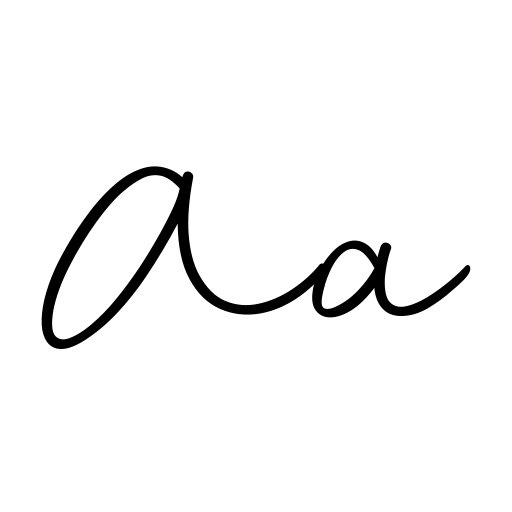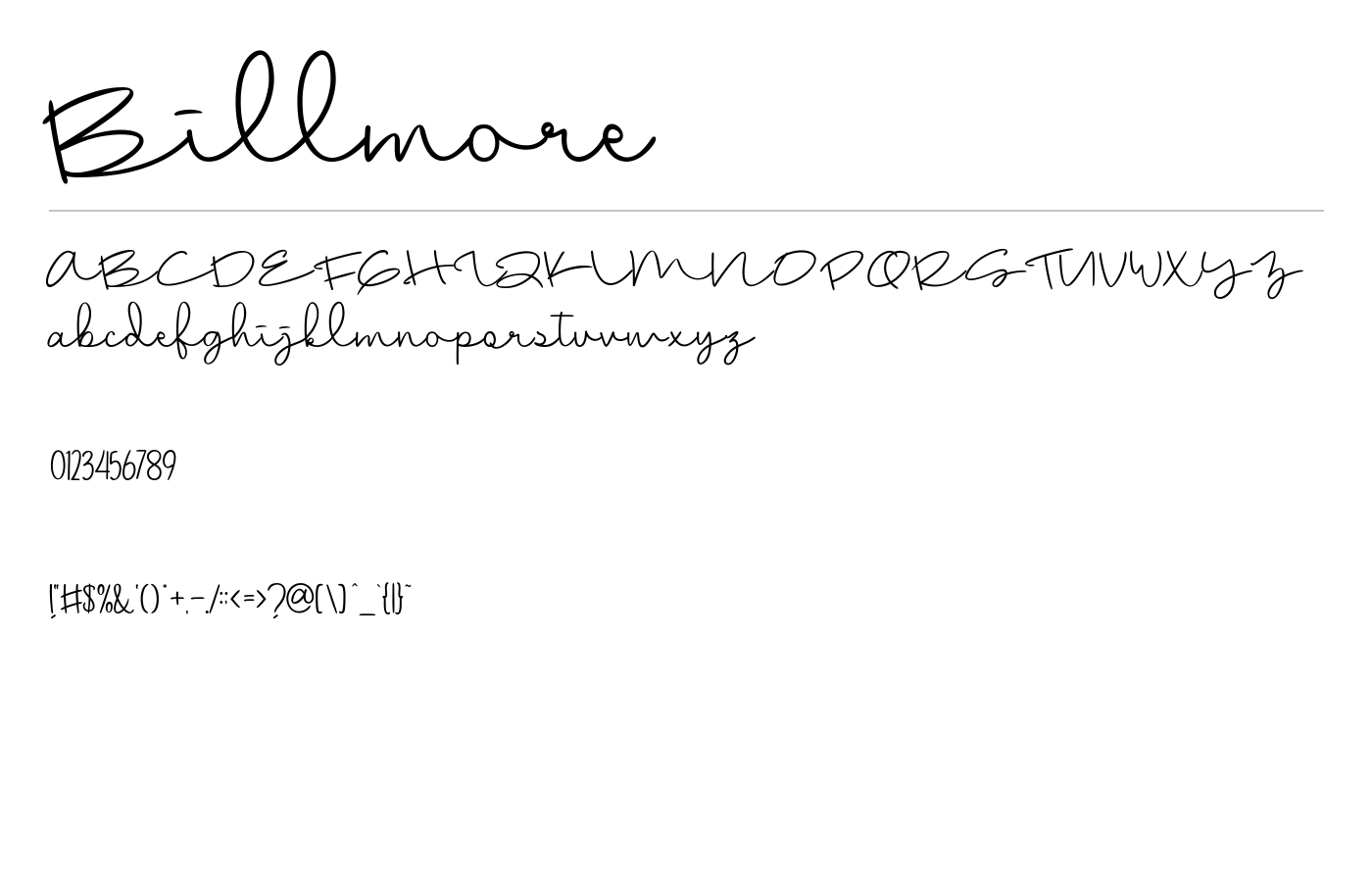
Billmore is a slender, casual script font that mimics natural, handwritten lettering with a playful and elegant charm. Its tall, narrow characters and smooth, flowing strokes give it a light, airy feel, making it perfect for adding a personal touch in invitations, branding, and creative projects that seek a friendly yet refined look. This font works well in designs where a modern, informal elegance is desired without sacrificing legibility.
Billmore Font
About Billmore Font
| Designer | Zain Fahroni |
| Trademark | Fourlines |